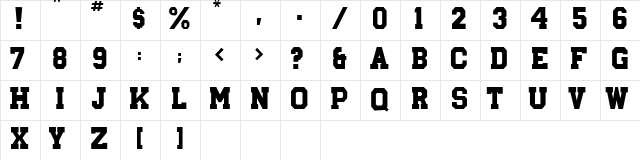
AWENITA Regular
Design Context for AWENITA Typeface
AWENITA is a composed and adaptable typeface that performs quietly and consistently across a wide range of design contexts.